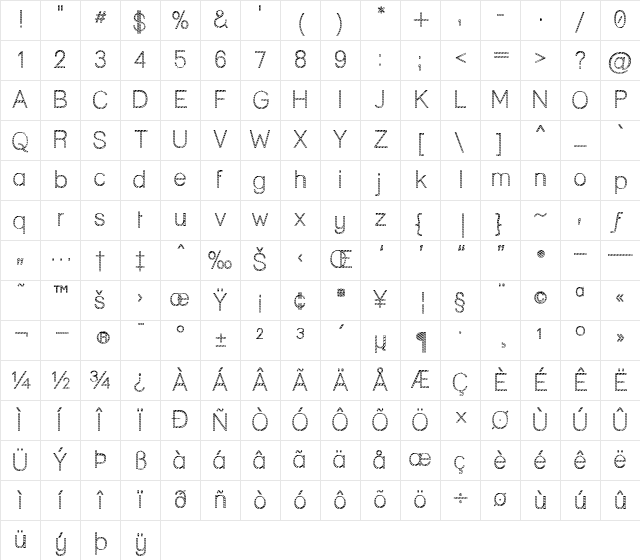
Lane - Cane Regular
Designer: Graham Meade
Design Context for Lane - Cane
Lane - Cane is a composed and adaptable typeface that performs quietly and consistently across a wide range of design contexts.
Pro Tip: Use Lane - Cane in both headline and body roles to test its range before committing to a single application.